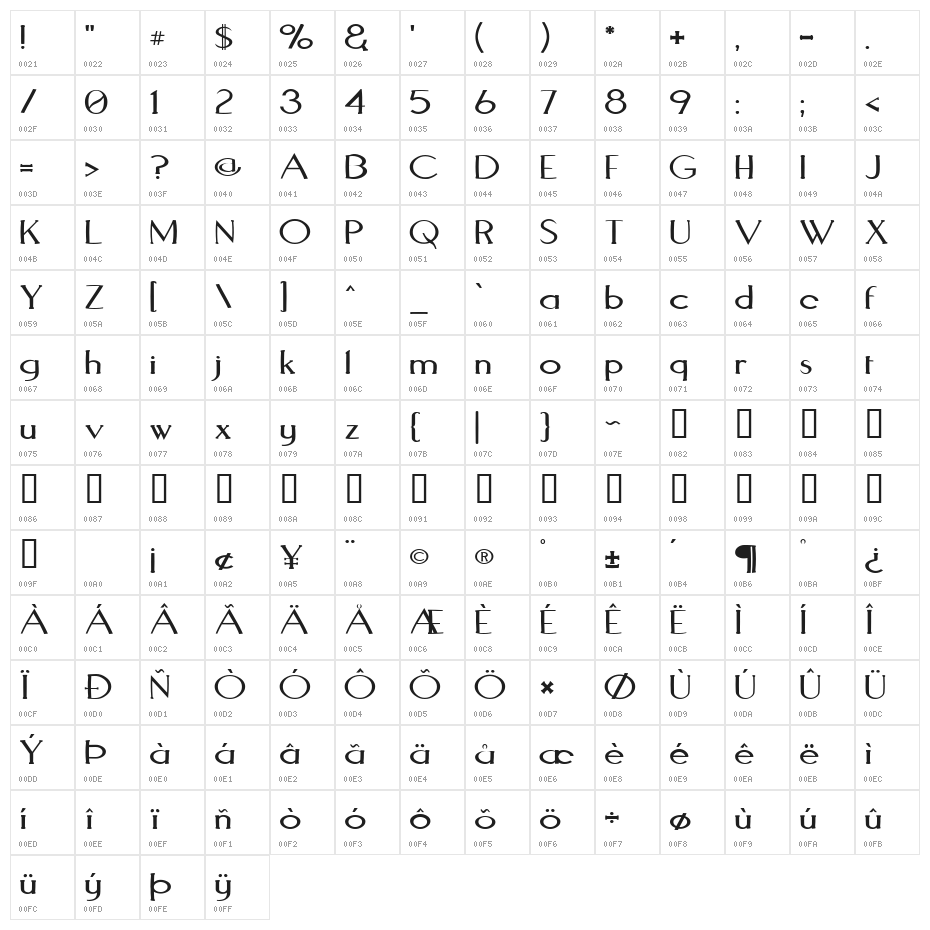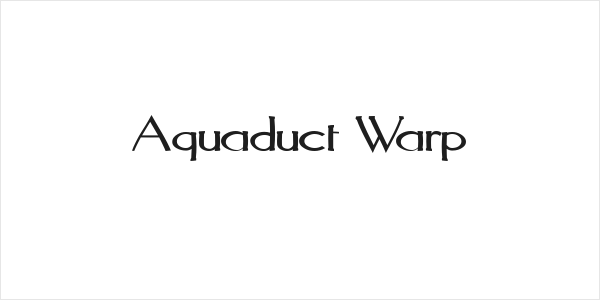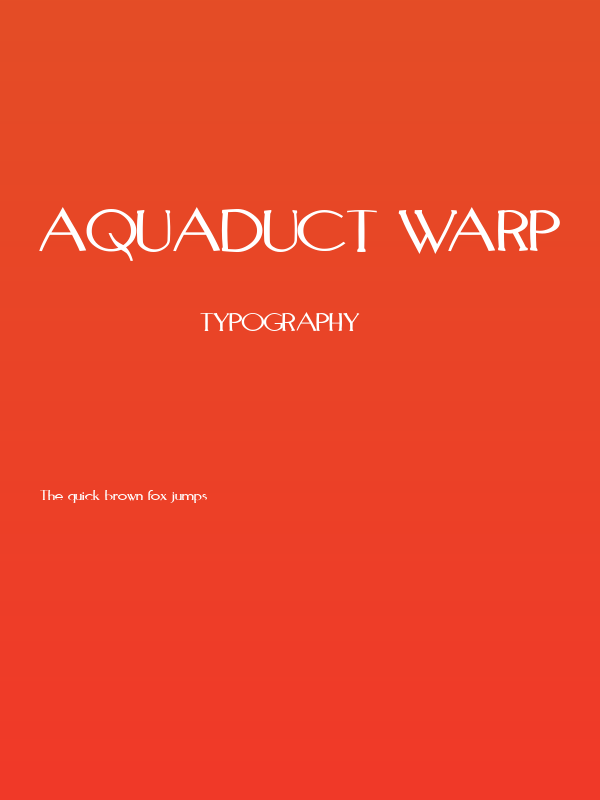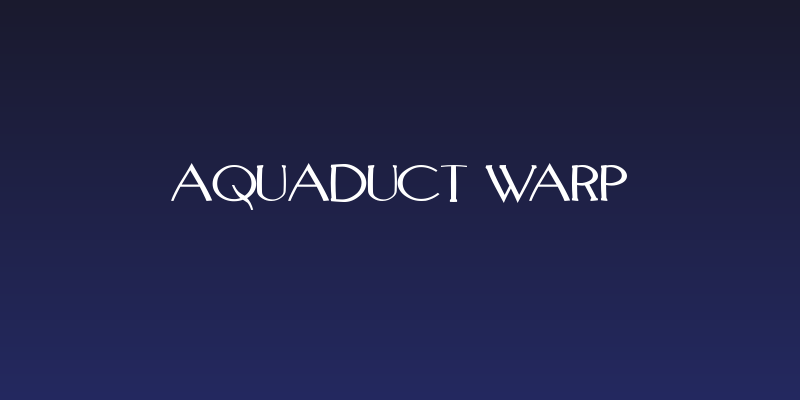
Aquaduct Warp Font
Aquaduct Warp Description
This font features a unique and artistic design with a blend of modern and classic elements. The uppercase letters are characterized by sharp, angular lines and a slight curvature, giving them a dynamic and elegant appearance. The lowercase letters maintain a consistent style, with smooth curves and a slightly whimsical touch. The numerals are bold and distinct, ensuring readability while maintaining the font's artistic flair. Special characters are creatively designed, adding to the overall aesthetic appeal. This font is perfect for projects that require a touch of sophistication and creativity.
| Proposed Projects | Ideal for branding, logos, headlines, and creative design projects. |